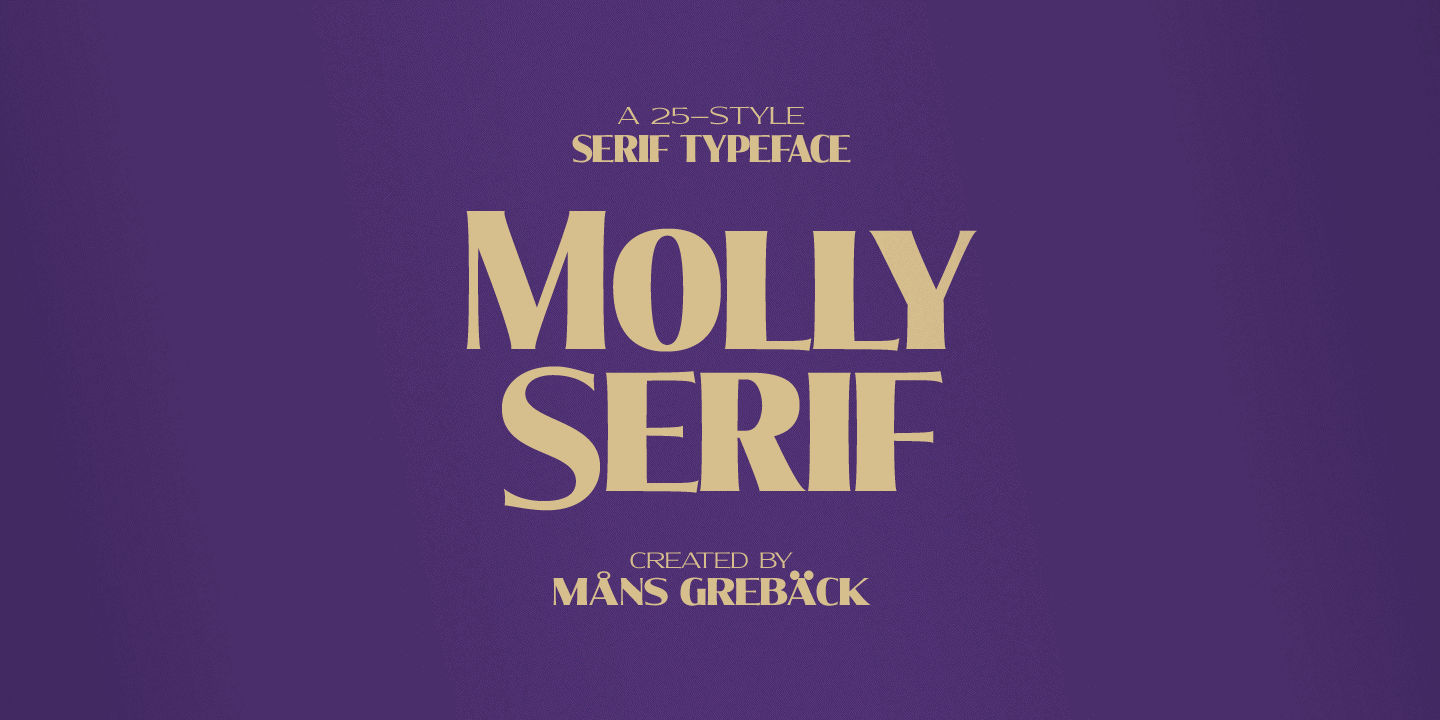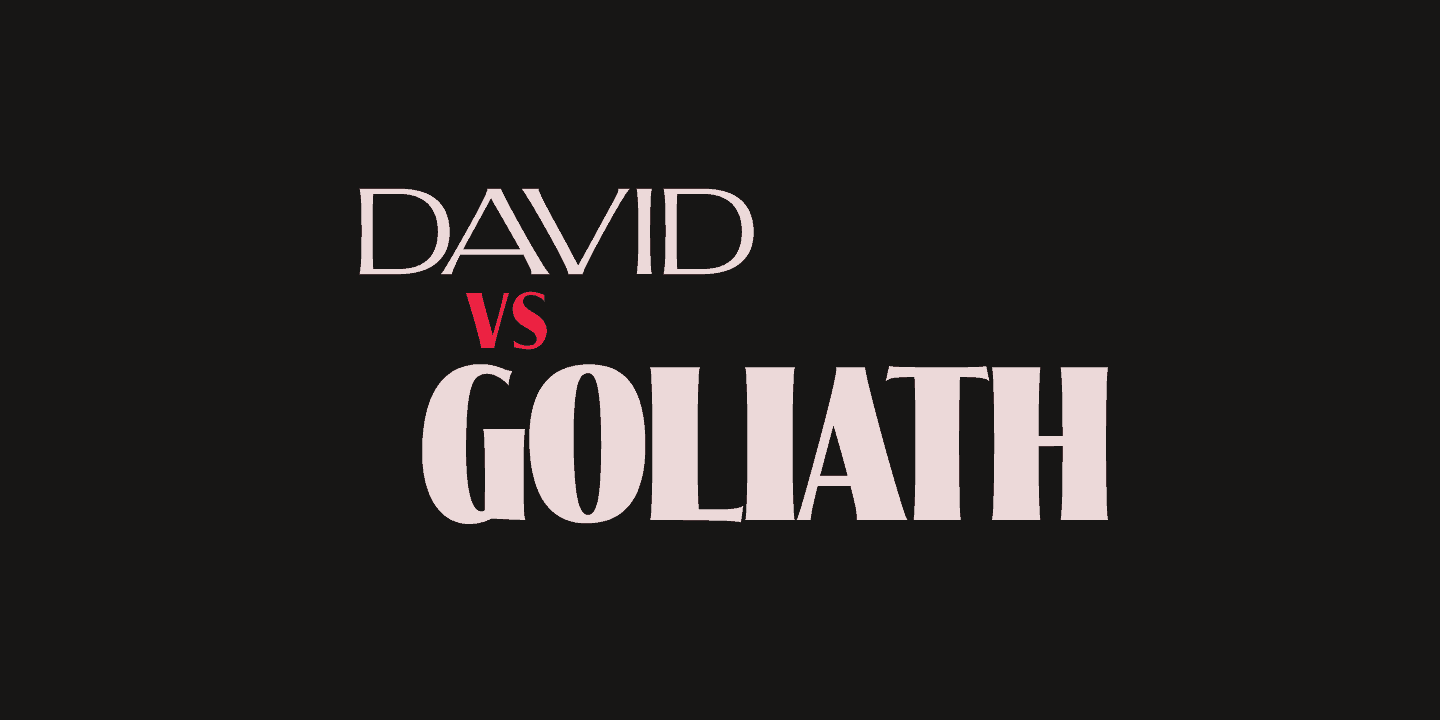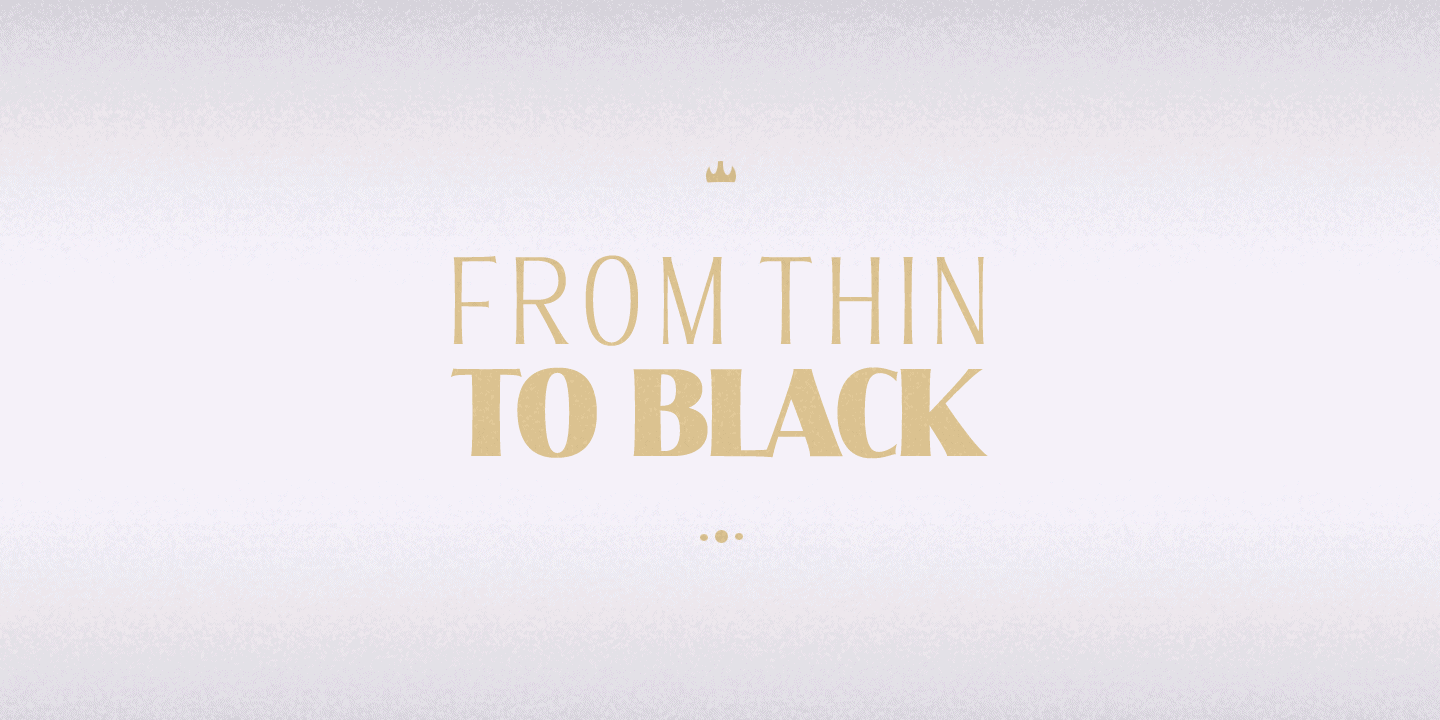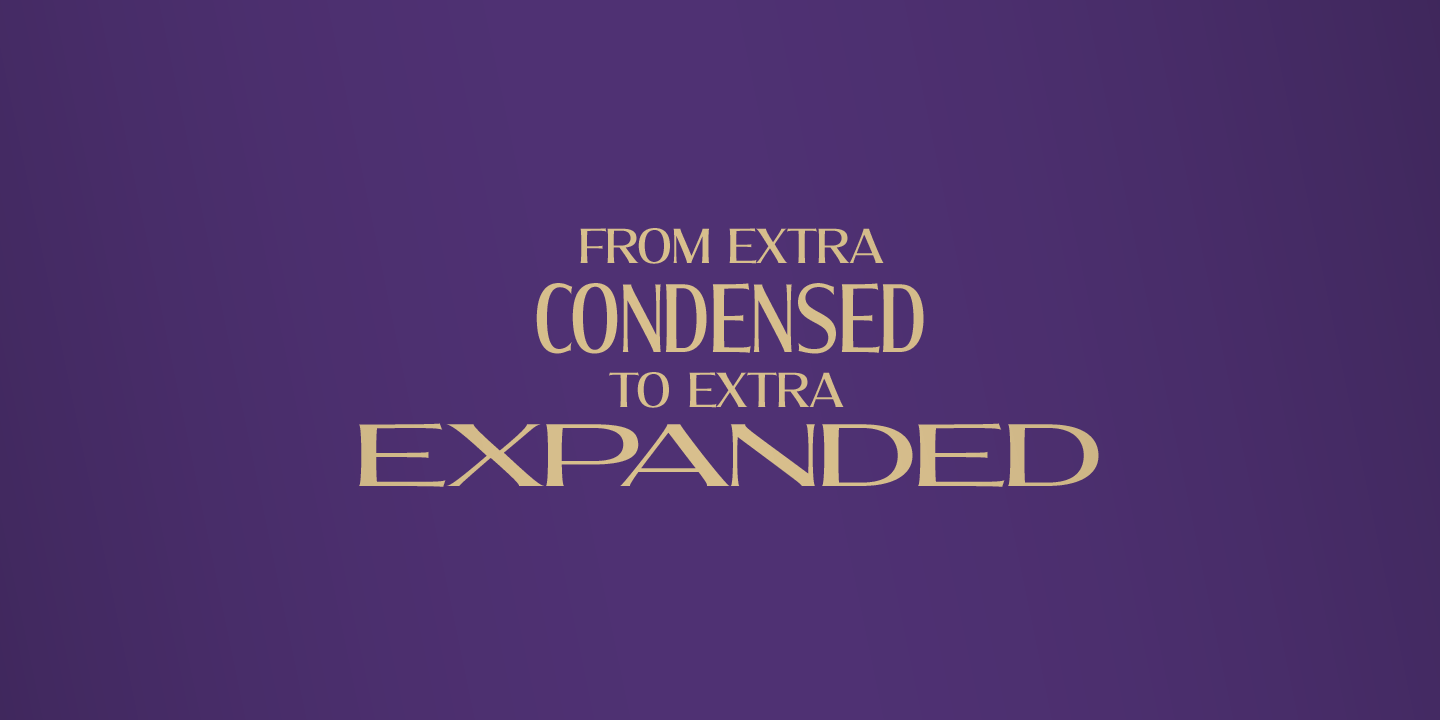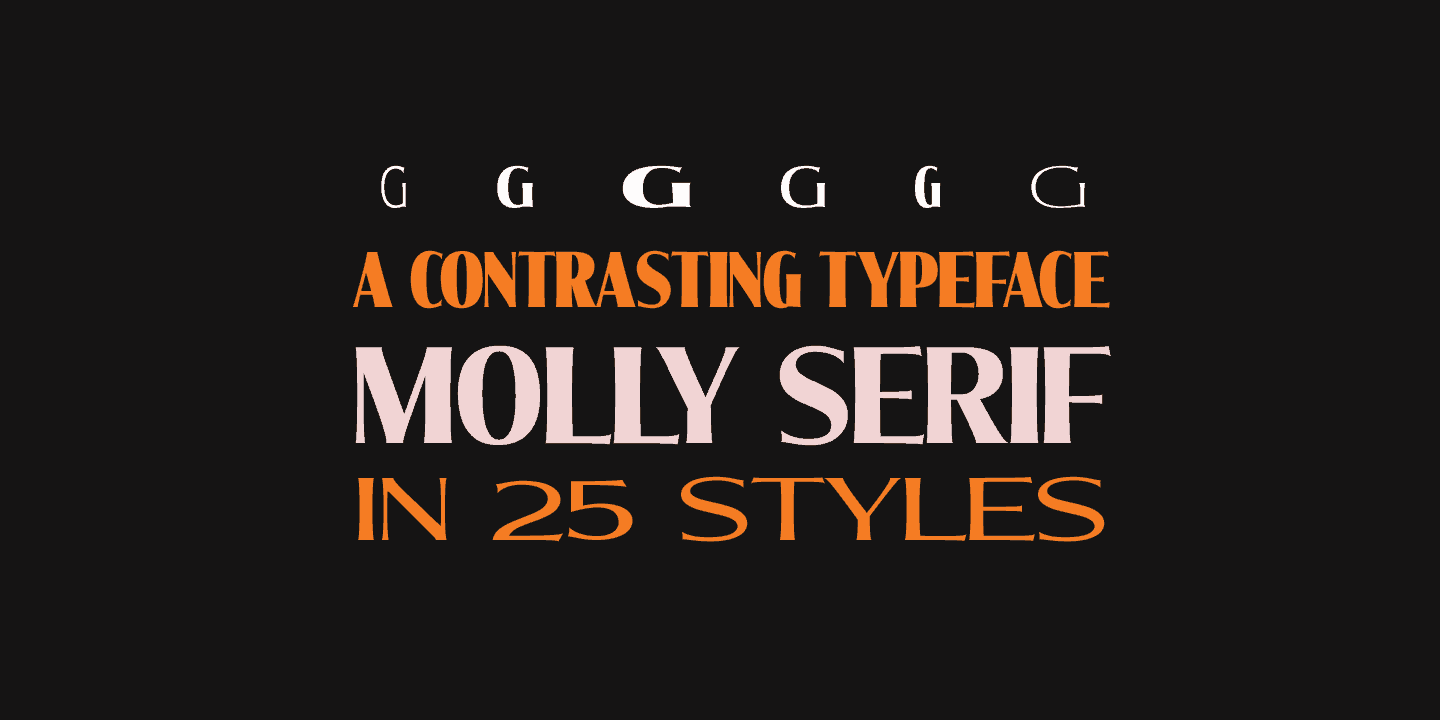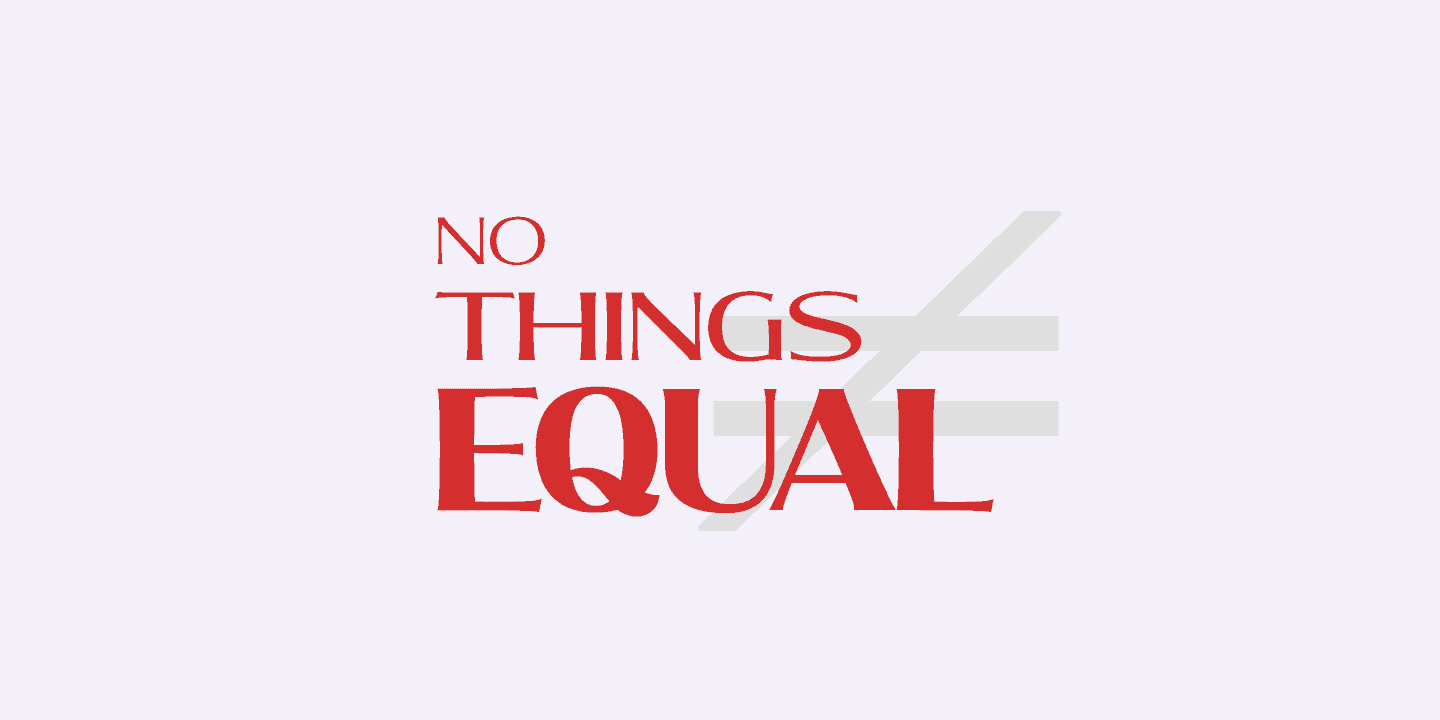
Molly Serif
Molly Serif is a multi-style serif family, drawn and created by Måns Grebäck between 2016 and 2019.
With an appearance similar to traditional sign painting, this all-caps typeface works great in classic, genuine and crafty designs. Like a newspaper black print header, Molly Serif is used for logos and titles meant to grab the attention of the observer.
The font family includes 25 (!) styles, from Extra-Condensed Thin to Extra-Expanded Black. The many style options allows for very high flexibility and real customization.
Each style goes well with the other styles, or contrasts nicely with any script typeface. Molly Serif contains a wide range of international glyphs and characters, and supports all European, Latin-based languages.